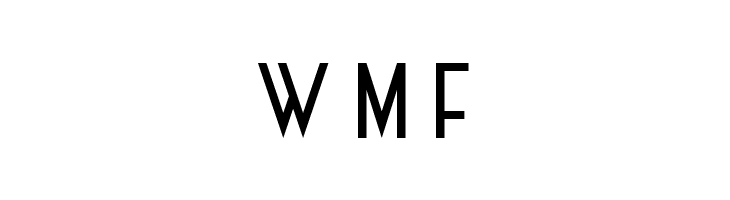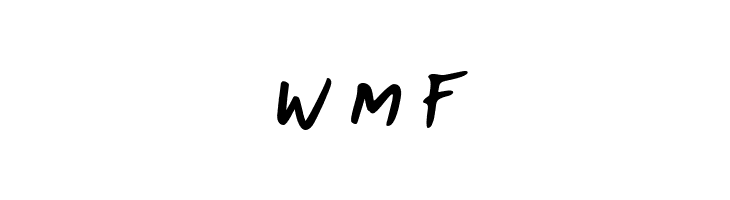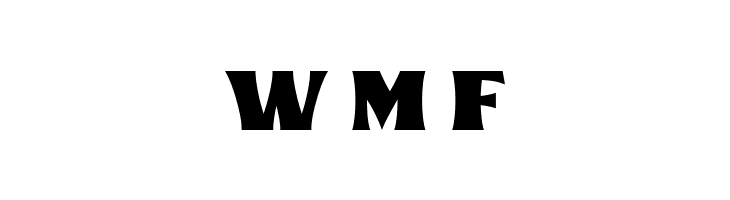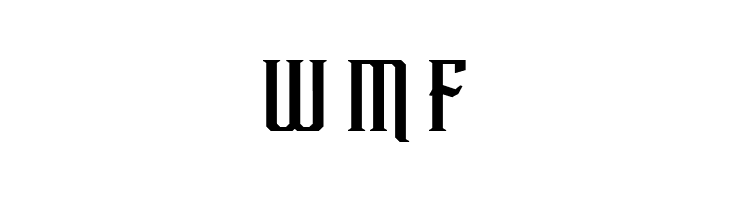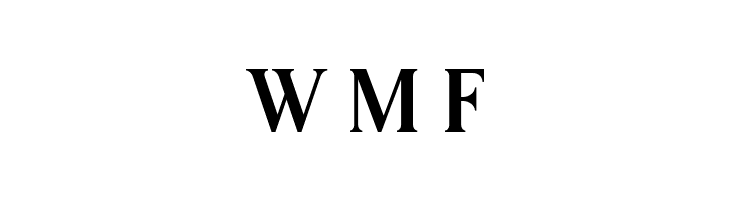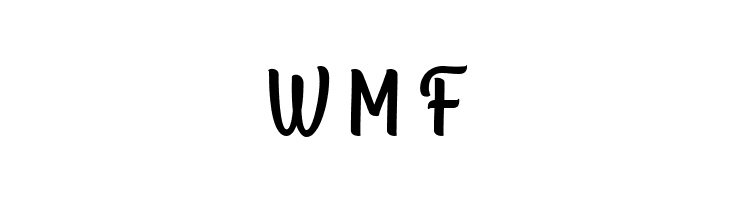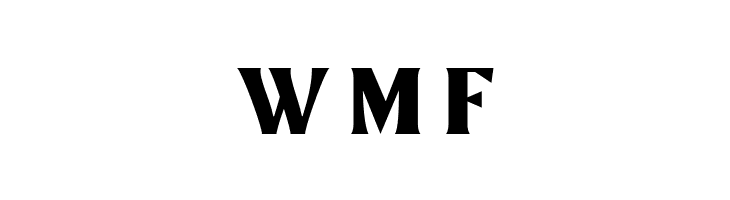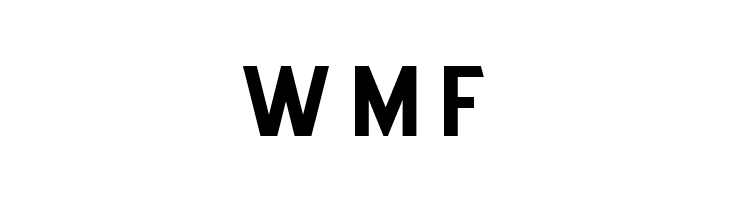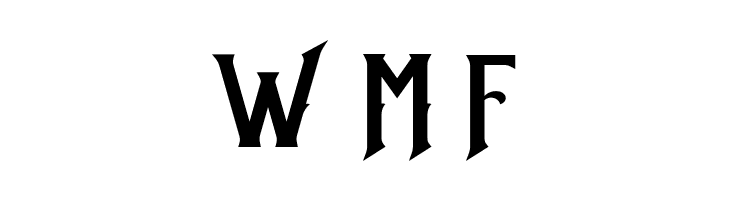
A bold, geometric font with strong, angular lines and a modern aesthetic.
A bold, decorative italic font with sharp serifs and dynamic style.
A bold, decorative font with sharp serifs and intricate details.
A lively, cursive script font with elegant, connected letters and a dynamic flow.
A casual, elegant script font with smooth, connected letters and moderate stroke thickness.
A bold, decorative font with vintage flair and ornate details.
A bold, decorative font with vintage-inspired serifs and unique embellishments.
A bold, modern font with strong, thick strokes for impactful designs.
A bold, impactful font with thick, uniform strokes and a modern style.
A modern, geometric font with bold and artistic elements.
A bold, modern sans-serif font with clean, geometric lines.
A bold, high-contrast serif font with a classic yet modern style.
A bold, expressive script font with dynamic flow and smooth curves.
A bold, angular serif font with a modern twist and strong visual impact.
A bold, gothic-inspired font with sharp, angular lines and dramatic curves.
A casual, handwritten-style font with smooth, flowing strokes and a playful aesthetic.
A bold, playful handwritten font with smooth, flowing curves.
A bold, decorative font with intricate swirls and flourishes.
A bold, decorative font with ornate flourishes and a vintage style.
A bold, dramatic serif font with strong, angular serifs and a modern twist.
A bold, dramatic font with strong strokes and a slightly condensed style.
A bold, blackletter-inspired font with sharp, angular lines and a gothic aesthetic.
A bold, modern sans-serif font with geometric lines and a clean, cohesive design.
A classic serif font with medium contrast and elegant curves.
A lively and flowing script font with bold, rounded characters.
A bold, high-contrast serif font with sharp serifs and a dramatic style.
A bold, condensed font with high contrast and dramatic style.
A bold, serif font with strong strokes and sharp serifs, ideal for impactful designs.
A bold, high-contrast serif font with dramatic strokes and elegant curves.